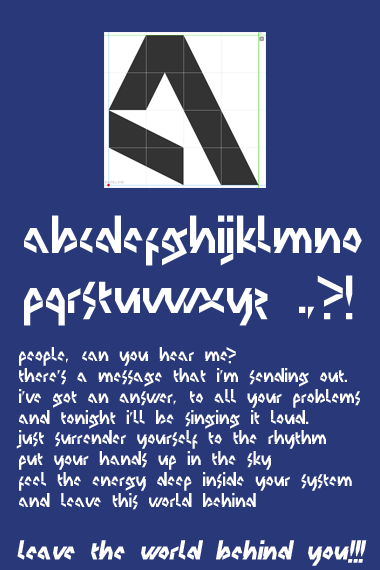
This FontOut:
(10 June 2012)
Create a font that can be easily read in a paragraph. The typeface must be made with FontStruct. Please upload sample pictures to this discussion.
Let's see what our FontStruct community can do!
What do you mean by "easy to read in a paragraph" ? I can smell the perfume of boring copies of arial- helvetica-bodoni etc in this fontout
@abneurone // Then you have the right not to participate if you feel that way. I meant a font that looks good when in a paragraph. Sorry, I cannot tailor a sitewide competition to a single FSor's opinion. If you'd like to participate, we'd love it! :)
I like it! What is that thing at the end of the sample?
Thank you. This a graphic counterpoint to the text. This is an abstract image which can make you think to church stained glass, to chemical elements, to cells before dividing, to beehive bees constructions, to geometric painting... let your imagination flow... followed by a needle (or a thermometer ?) (actually an "l" in this font.
I like it a lot.
Do we make a new font for this? Or can we use a font that's been made before FontOut2? (I assume the former)
This is a little harder. I don't have any font designed for paragraph, instead designed for logos and big sized usage...
@neurone: Nice sample, dude :) From this we can conclude that a paragraph doesn't only can be filled with "boring" fonts, a "crazier" fonts can make a paragraph more interesting!
I agree that this didn't sound as interesting... Until AFT made it so!
@u126 // Either one. You choose.
@everyone else // Well, should I change it? I didn't want it to be another "design the most beautiful glyph", so any suggestions?
@demonics : even I took the challenge! Let them some time before cancelling the fontout!
All right… the challenge is still up!
Something I started sometime ago, just want to hear some opinions about legibility.
@architaraz: It's brilliant.
Faux Pas Serif
Text: Immanuel Kant, Kritik der reinen Vernunft, Vorrede zur zweiten Auflage
Either way, my votes are:
1: Laynecom
2: Architaraz
2 points for the 2nd vote
1 points for the 3rd vote
Winners
1: laynecom
2: architaraz
3: AFT/cirque traumaccord